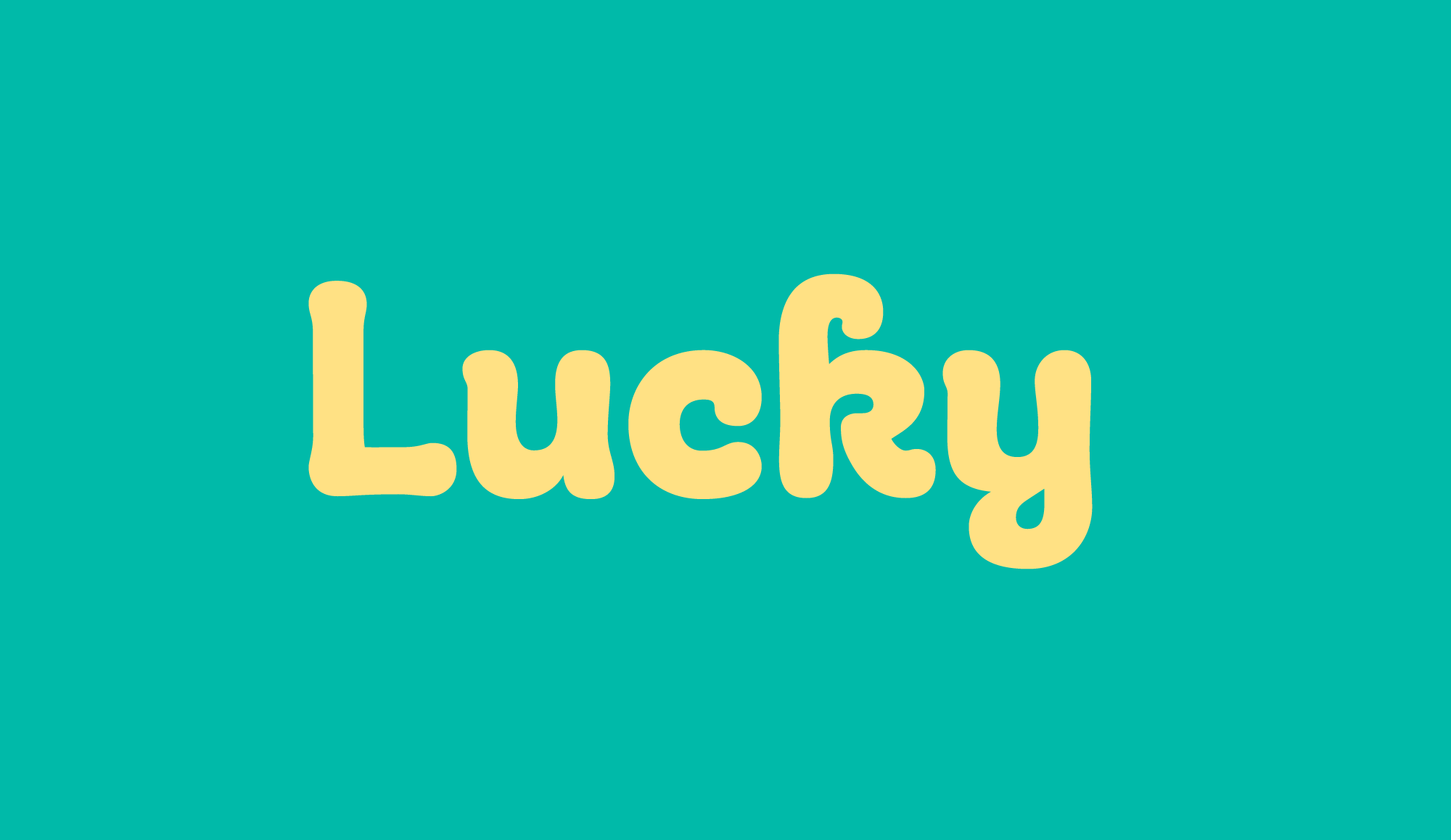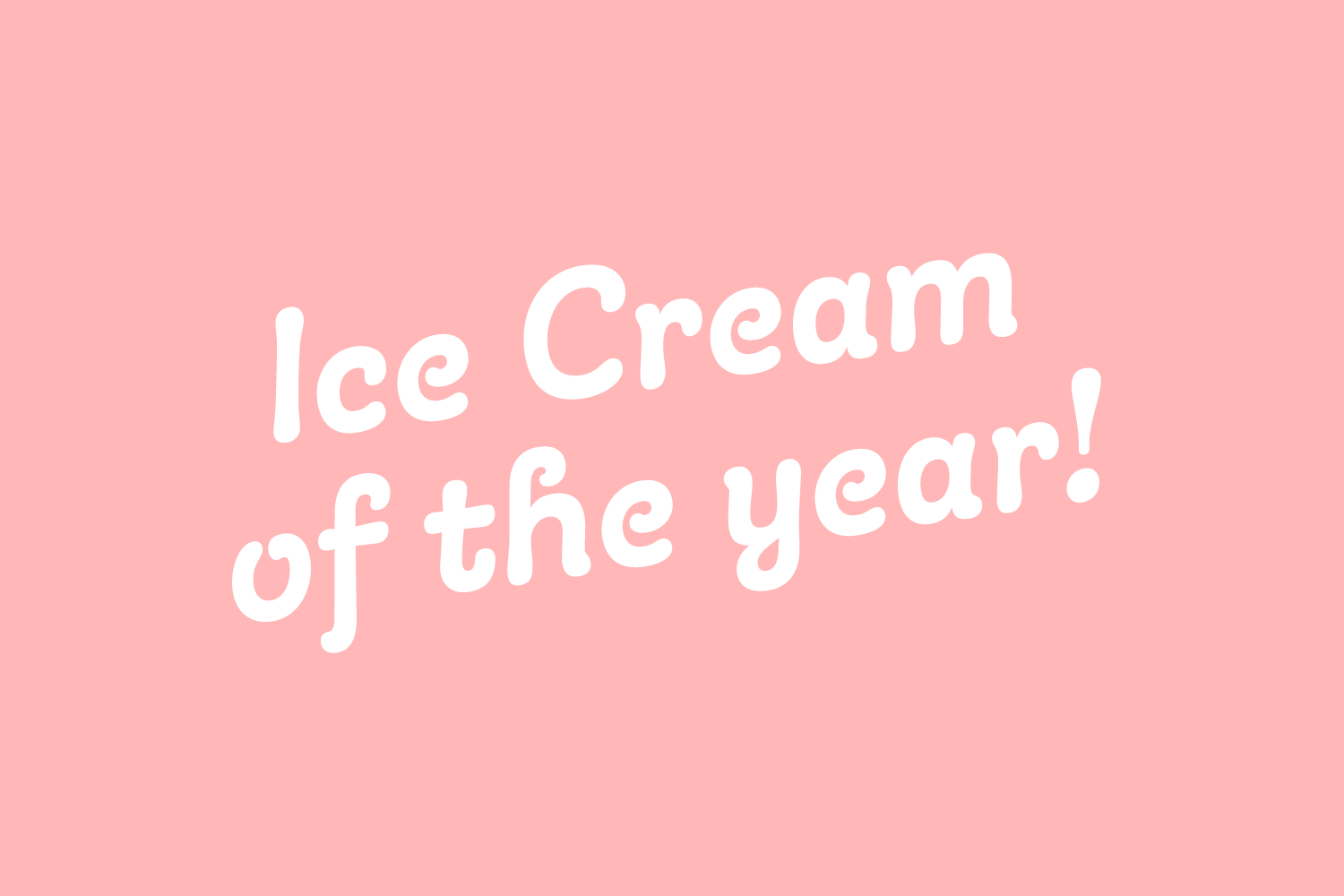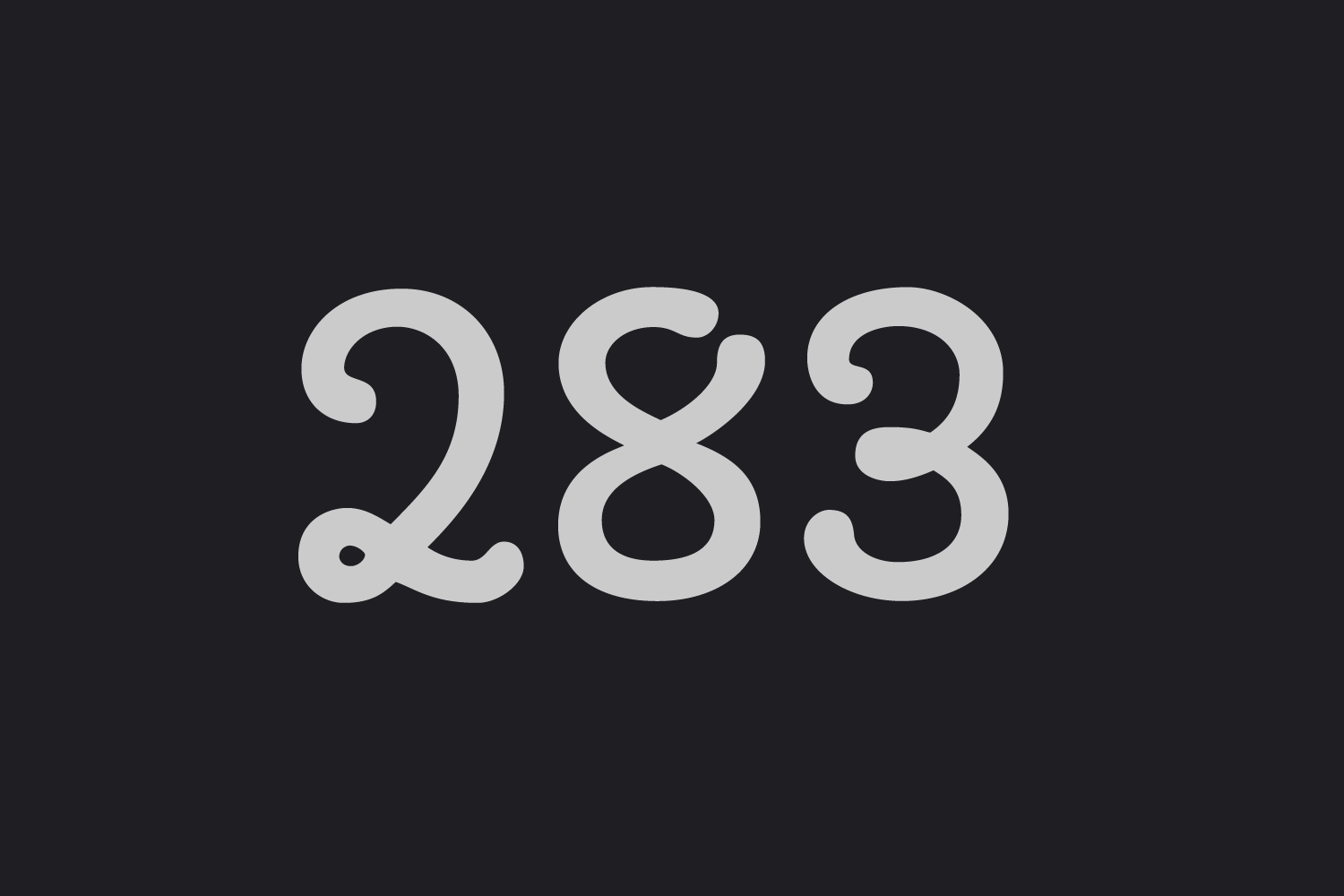
Giulia and Giulia Plain are two sweet type families consisting of 12 Fonts in total. Besides more straight version called Giulia Plain, there is this fancy curly version: Giulia. Informal, calligraphic and easy going, perfect for display settings, and lovely designs. This contemporary type family is ideal for use in retail, packaging, games, food, kids applications and advertising.
I enjoy drawing beautiful forms and searching for new lettershapes which fit perfectly in the concept – yes, this might be one reason why I am a type designer. Giulia is a non connected hand drawn type face – a kind of hybrid between a rounded sans serif and a script face. Several letter forms like the capital “Q” or the capital “Y” the “e” or the “h” appear unusual to a sans serif coming from the philosophy of a script face. Combining these worlds and create a new world where both approaches work smoothly together was the basic idea and the starting point of Giulia. For a more reduced version with a similar feeling, you can have a look at Giulia Plain.
In addition to the extravagant and curly Giulia we added Giulia Plain, which is equipped with more conventional letterforms, still breathing the air of her bigger sister. You can compare the shapes and you will see that Giulia Plain is orientated towards a more “learned” architecture. This makes it more readable in smaller sizes or longer texts – some users might even prefer the cleaner version for headlines.
A font of today’s needs has to include more than just the alphabet and some punctuation. Besides a big number of accented letters, making sure that the typeface has a good language support, a font should include several features for excellent typographic work joining forces with the layout applications of the time and of course the user. Here is a selection of what this font family has to offer under the hood.
If two letters have the nature to collide when used in combination a ligature is needed to solve this unwanted event. Ligatures are especially designed solutions for such letter combinations. This font contains a set of ligatures which are automatically substituted as soon as these letter combinations are typed in
Besides the standard letters a font sometimes contains several versions of a letter called alternates. You can exchange the alternate with the standard letter by selecting it through the Opentype feature panel and every letter of the stylistic set will be exchanged. Often this results in a totally different optical appearance of the typeface.
When lining figures are used in a reading text they often produce a visual stretch in the text and disturb the grey value. It has the same effect if you use ALL CAPS in a text. One solution could be to make the numbers slightly smaller and give them some more space in-between. The other, more elegant way is to use the old style figures, they have ascenders and descenders like the lower case letters and will fit seamlessly in the text.
If fractions are needed anywhere an OpenType code makes sure that if you type any numbers combined with a slash between a fraction will automatically be substituted.
A superscript is a character that is set slightly above the line of type. It has the same weight and size like a subscript character. They are also used in formulas, mathematical expressions and text references, but can have many other uses as well.